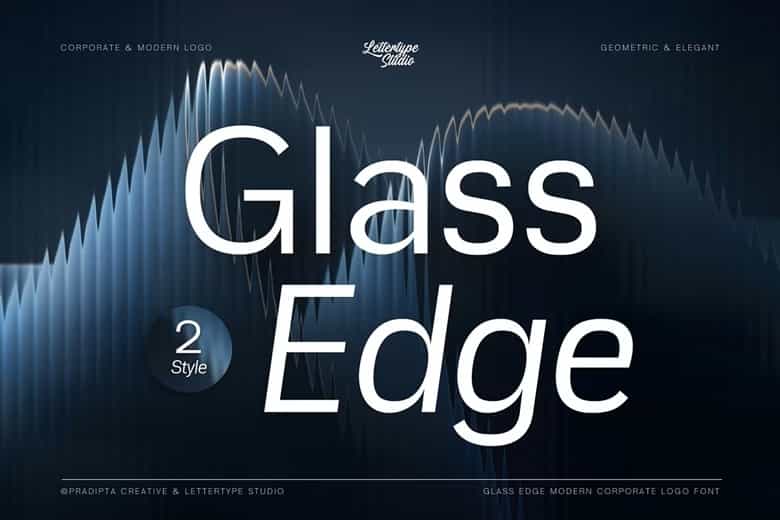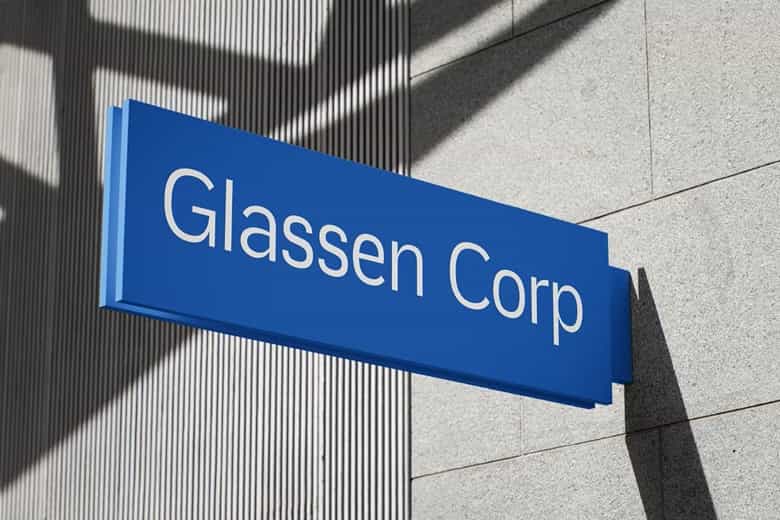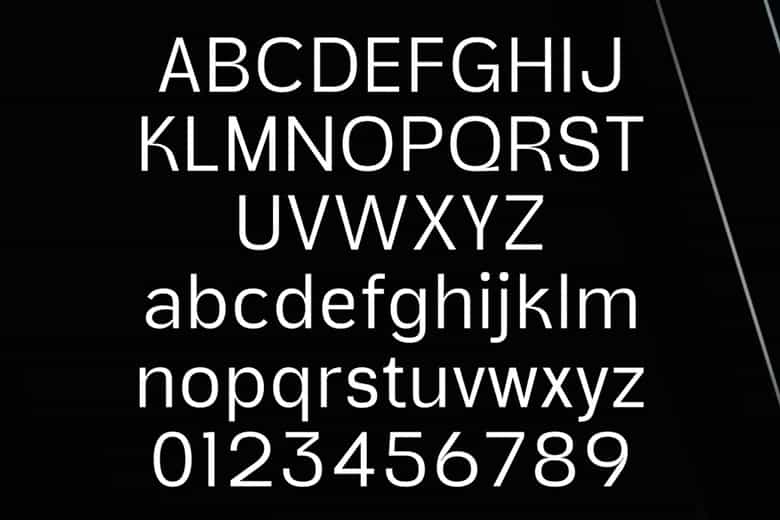
Class Edge is a grotesque sans serif font and is the contemporary bold professional typeface. Under the influence of clean, glassy design often seen in the newer mobile app operating systems, this font will add a biting sharpness and a technologically beautiful futurism to any design. Its clean geometry and refined curves resemble Glass Edge is perfect to suit corporate logos, technology interfaces, software branding, and simplistic visual systems that require both power and tastefulness.